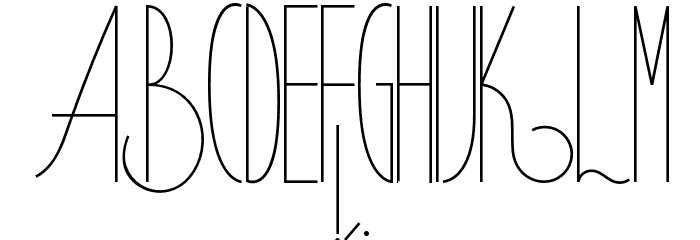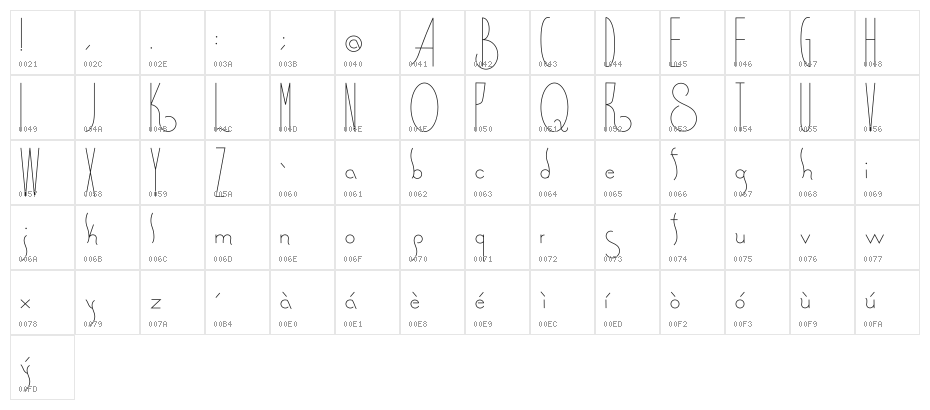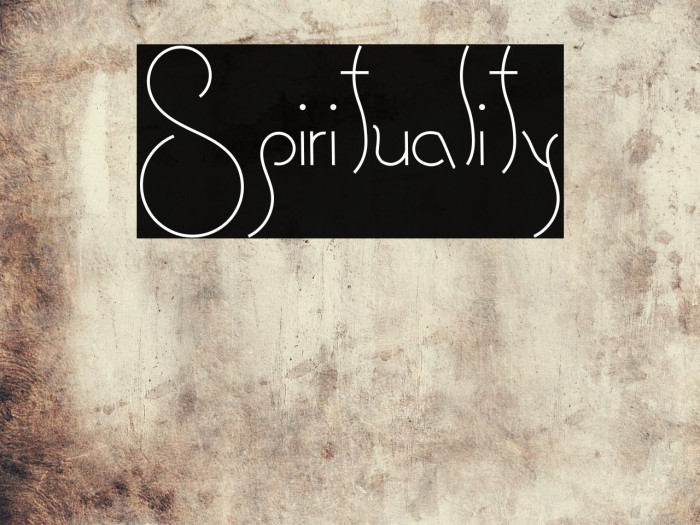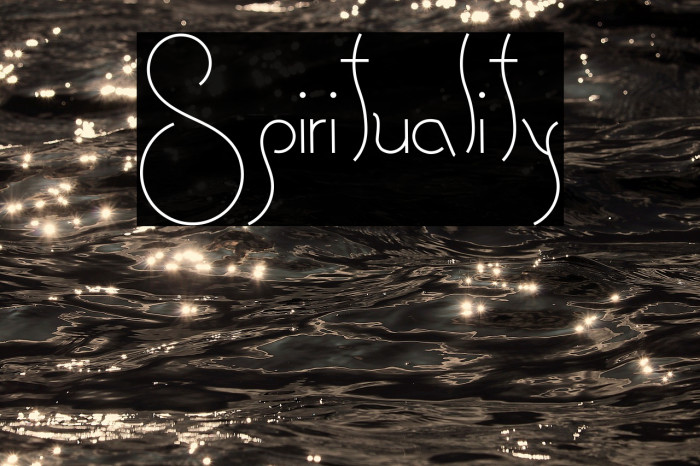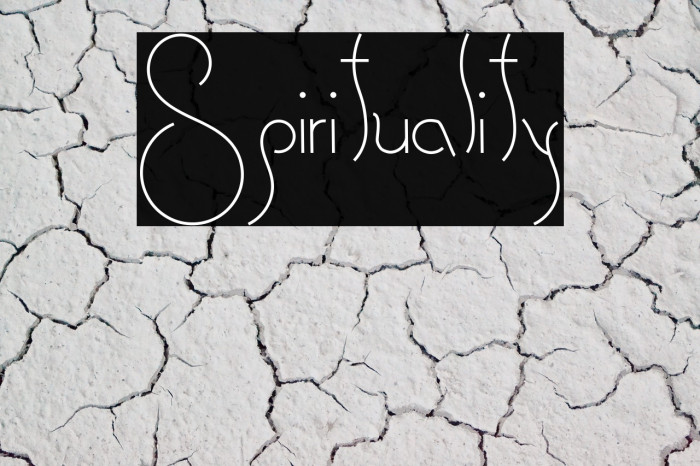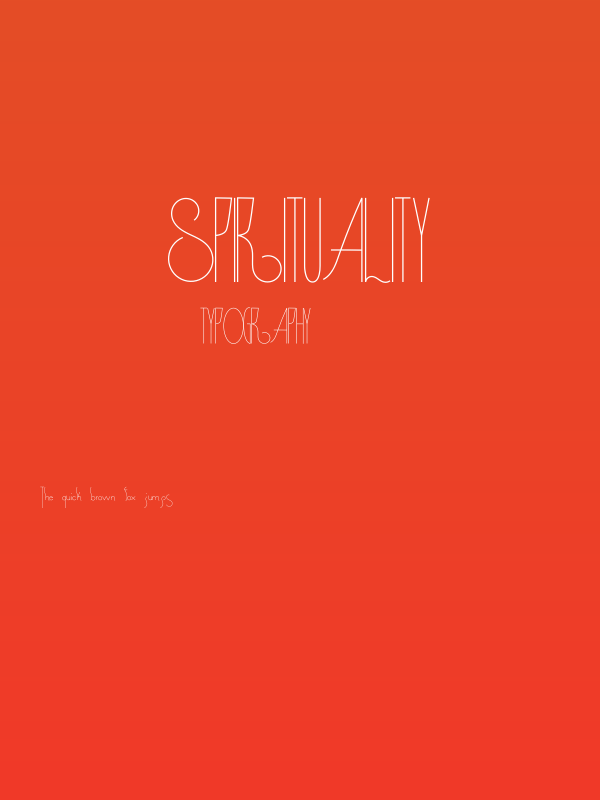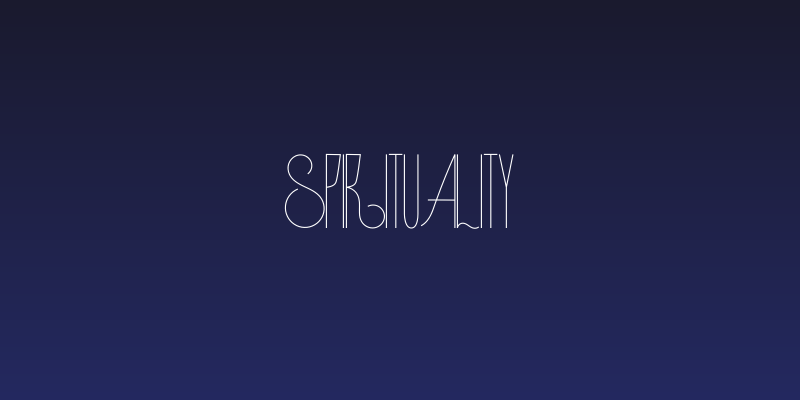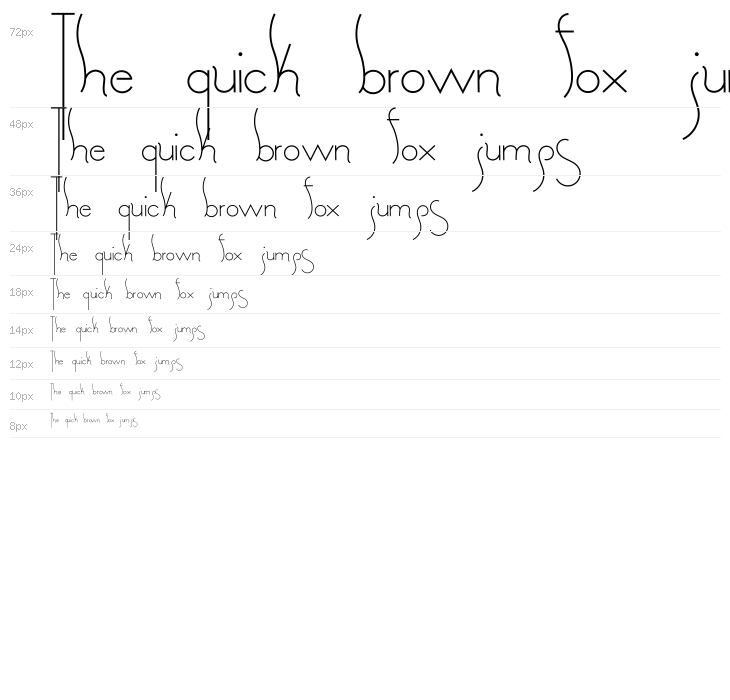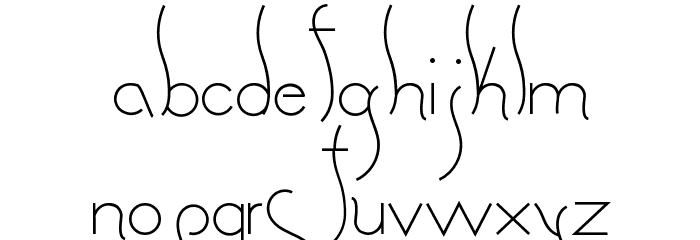
Spirituality Font
Spirituality Description
This font features an elegant and ethereal design, characterized by its tall, thin letterforms and delicate curves. The strokes are consistently thin, creating a sense of lightness and sophistication. The uppercase letters exhibit a unique blend of straight lines and gentle curves, while the lowercase letters maintain a fluid and graceful appearance. The numerals and special characters follow the same stylistic approach, ensuring a cohesive look throughout. This font's airy and refined aesthetic makes it suitable for projects that require a touch of elegance and modernity.
| Use Case | Logos, Headlines |
| Proposed Projects | Ideal for wedding invitations, luxury branding, high-end product packaging, and editorial design. |